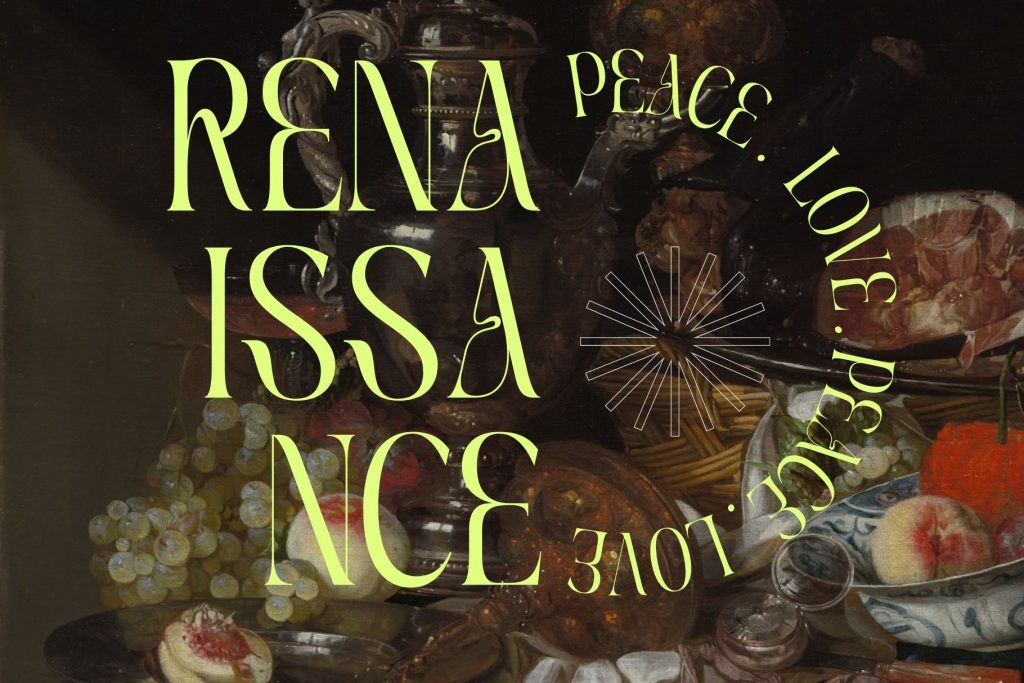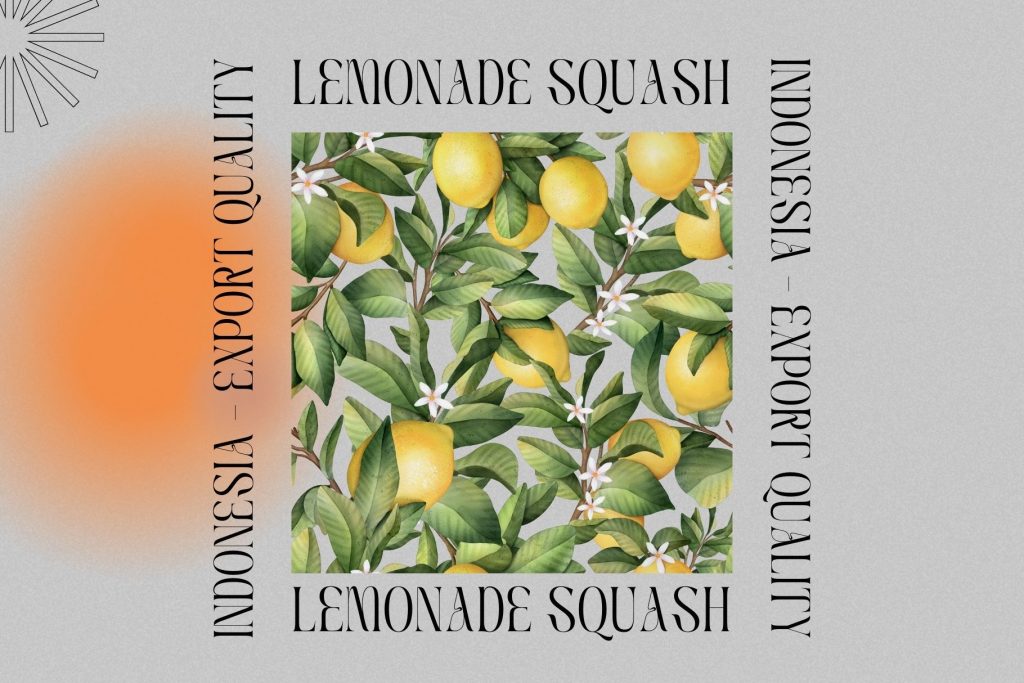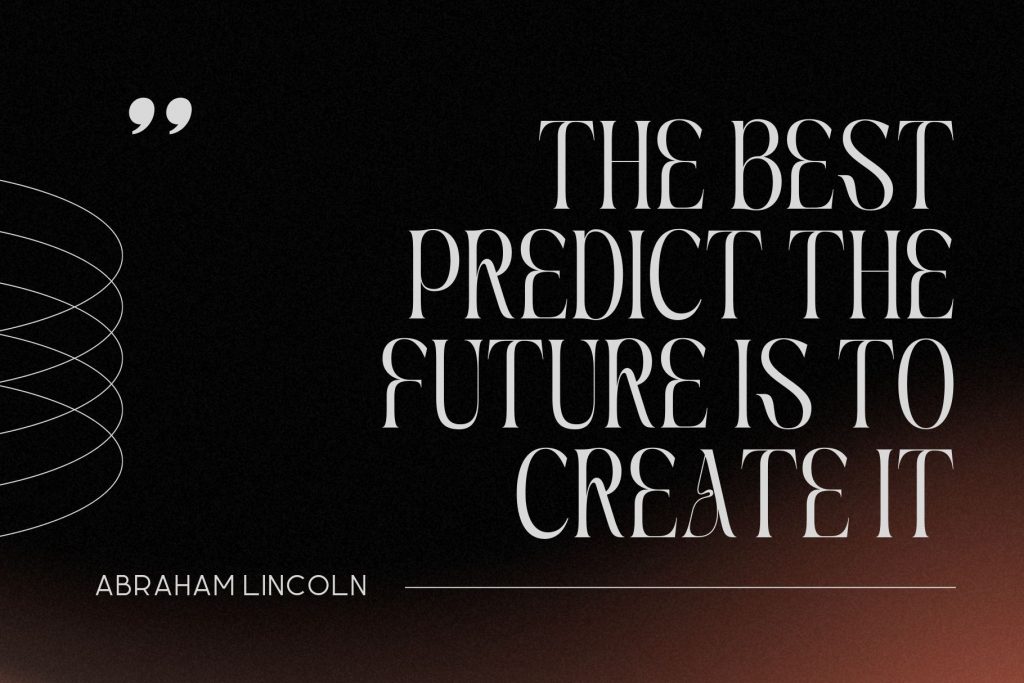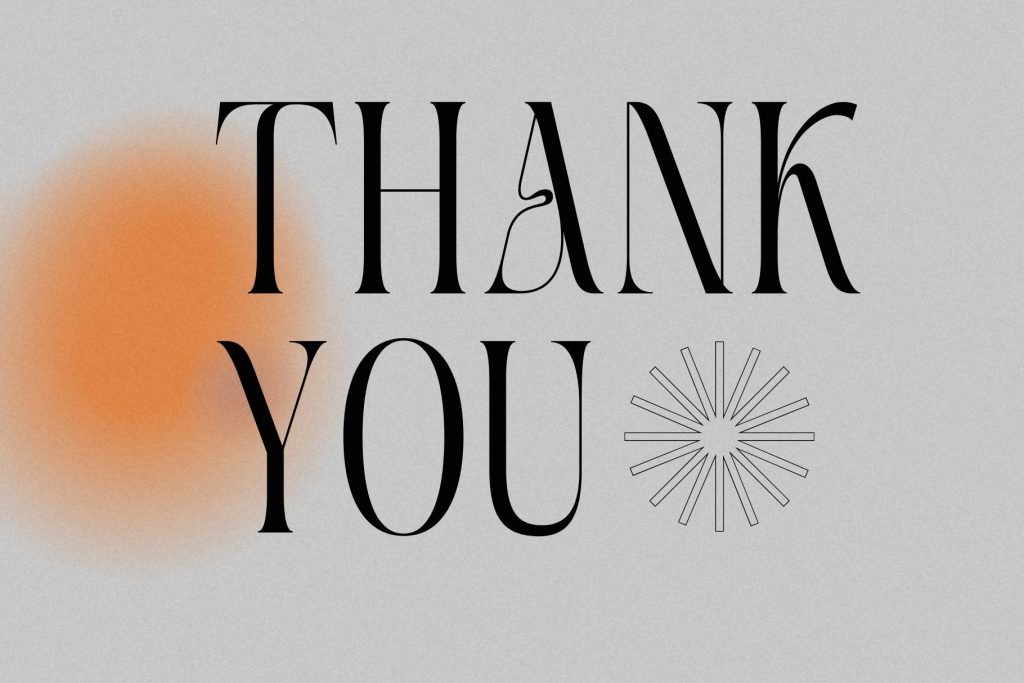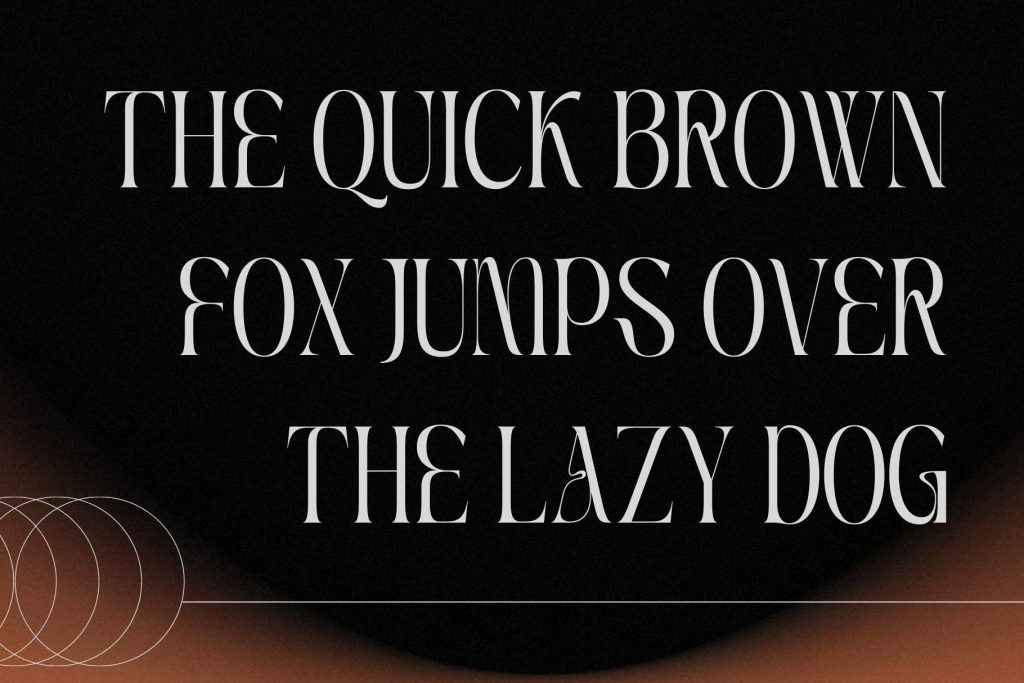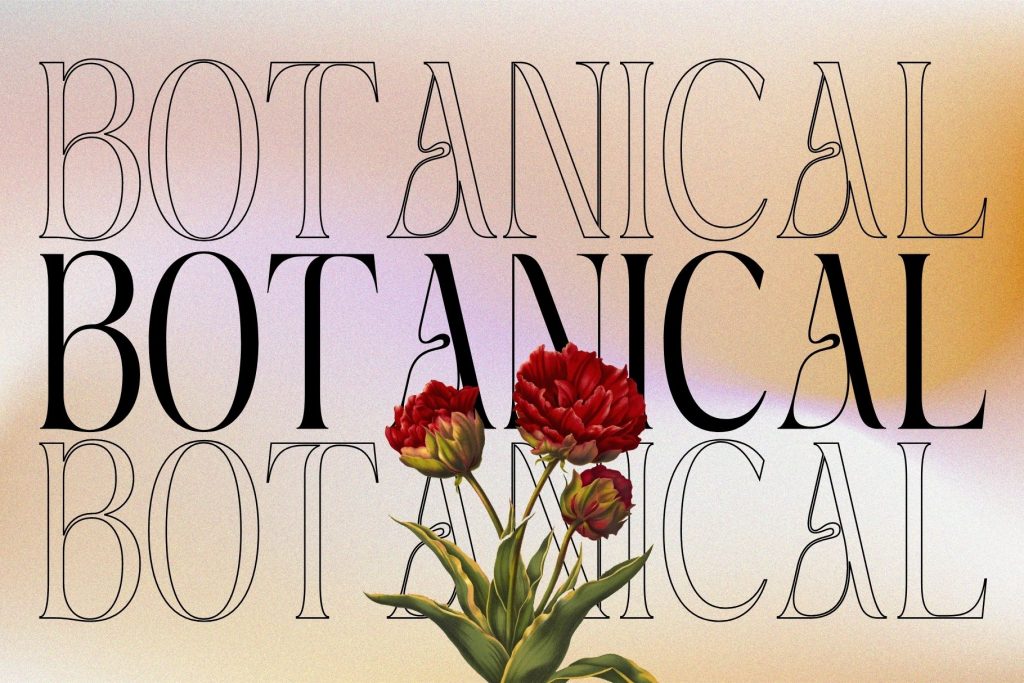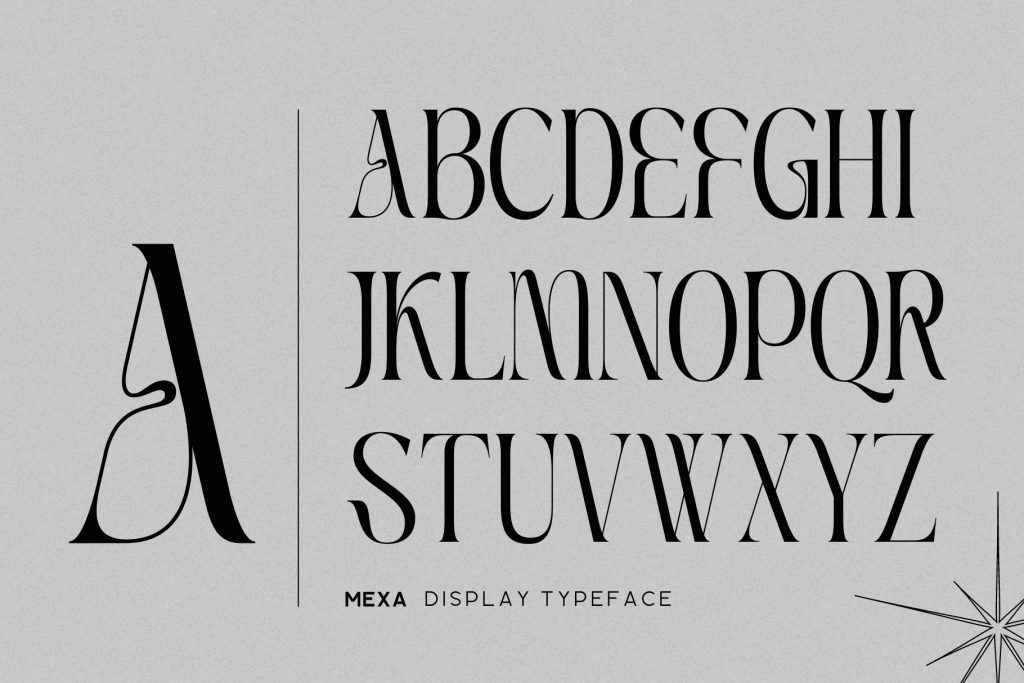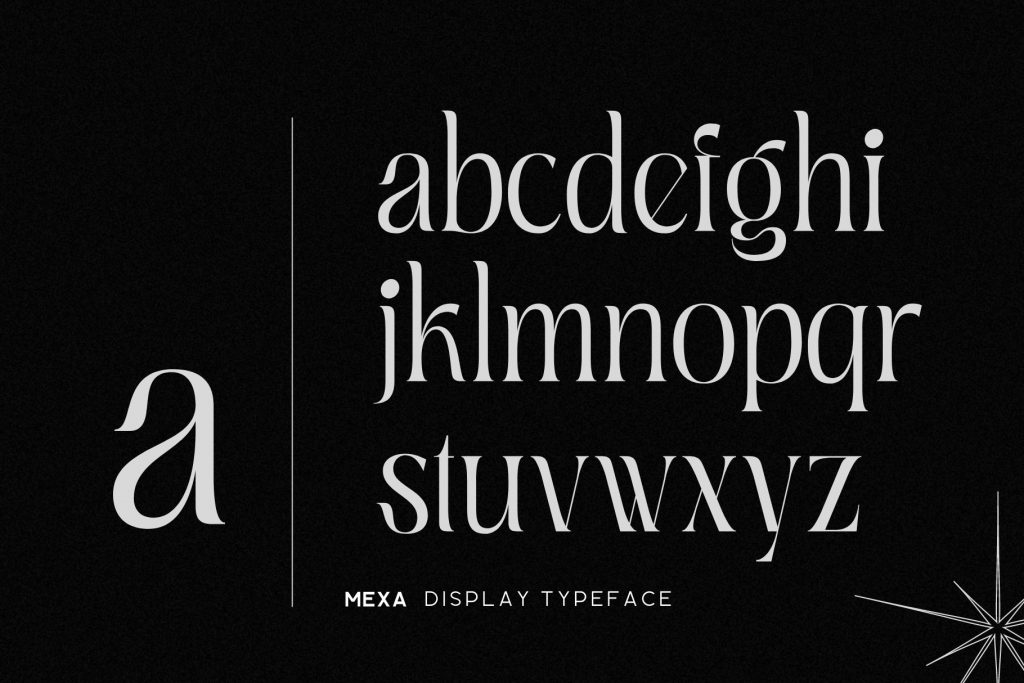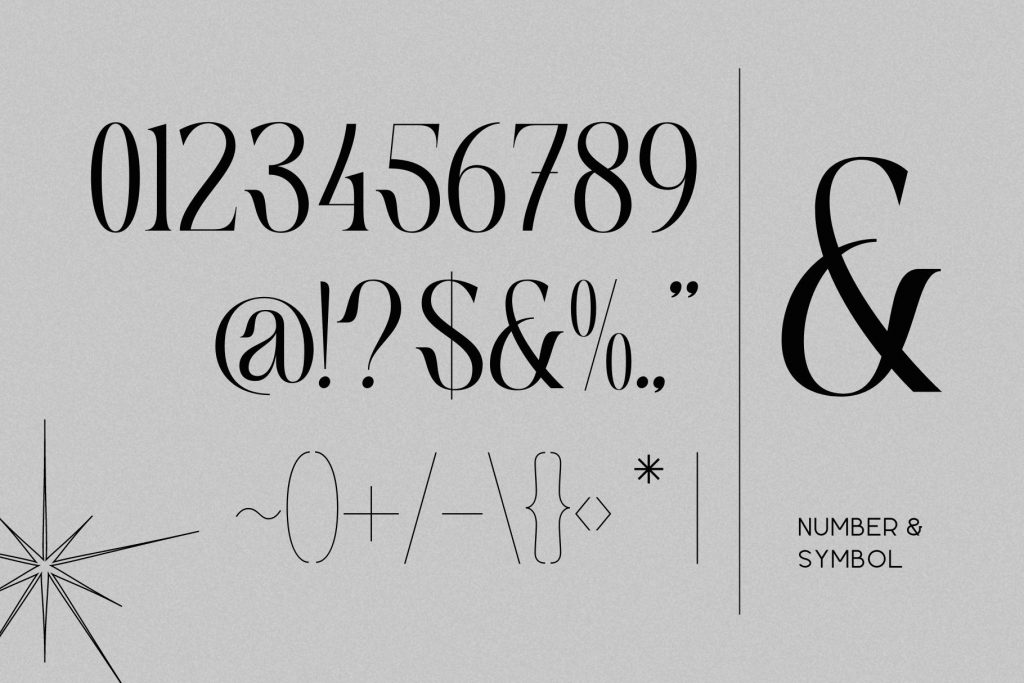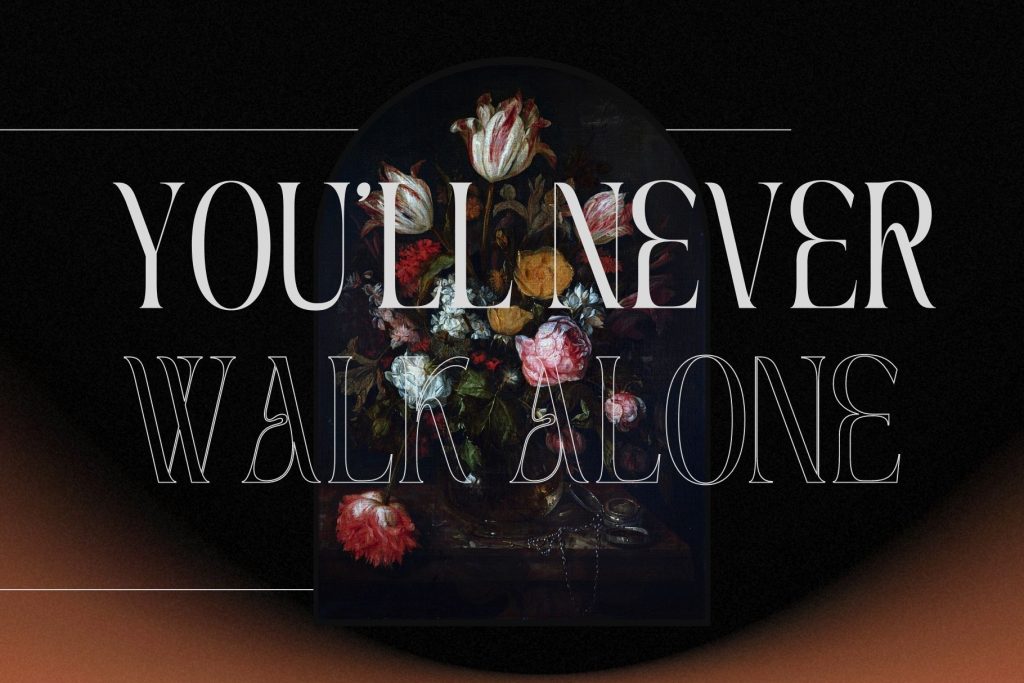
Mexa, contemporary of Serif font,
Mexa offers beautiful typographic harmony for a diversity of design projects, including logos & branding, social media posts, advertisements & product designs.